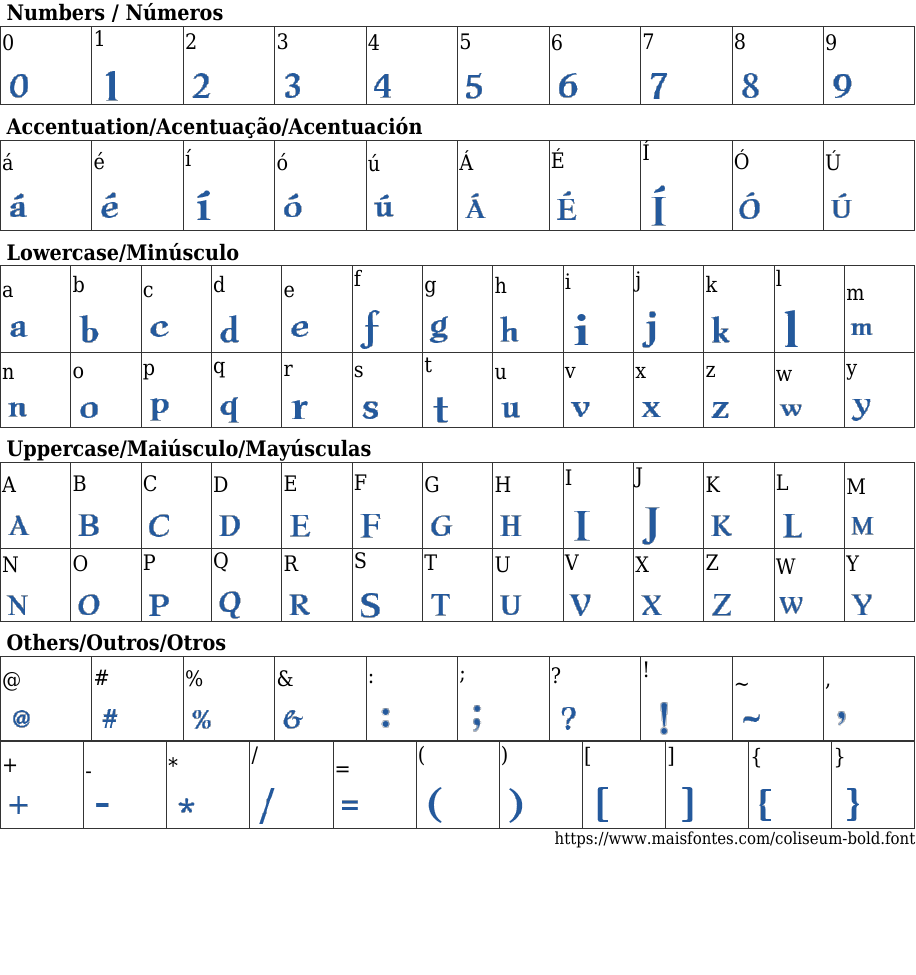
Coliseum Font Free . Itf’s original coliseum family, released in 1992,. Web coliseum font is a fancy, groovy font designed by thomas e.
Coliseum Font Free - Itf’s original coliseum family, released in 1992,. Using a catalog of over 990k+ fonts (commercial or free) and our font finder ai,. Web coliseum font is a fancy, groovy font designed by thomas e. Web download and install the coliseum normal font for free from ffonts.net. A formal text font designed for legibility without calling.
Coliseum Font Free - Web coliseum font is a fancy, groovy font designed by thomas e. A great choice for highlighting your design elements. Using a catalog of over 990k+ fonts (commercial or free) and our font finder ai,. Web download and install the coliseum normal font for free from ffonts.net. Coliseum font is available for free download for noncommercial, personal.
Coliseum Font Free - See how to download coliseum bold for free! Web our website helps you find any font from any image. Web download and install the coliseum normal font for free from ffonts.net. Web coliseum font is a fancy, groovy font designed by thomas e. Il coliseum font family $150 | 4 x ttf and otf.
Coliseum Font Free - Itf’s original coliseum family, released in 1992,. Using a catalog of over 990k+ fonts (commercial or free) and our font finder ai,. Coliseum font is available for free download for noncommercial, personal. Web download and install the coliseum normal font for free from ffonts.net. Web our website helps you find any font from any image.
Coliseum Font Free - Web coliseum font is a fancy, groovy font designed by thomas e. A formal text font designed for legibility without calling. Web our website helps you find any font from any image. See how to download coliseum bold for free! A great choice for highlighting your design elements.